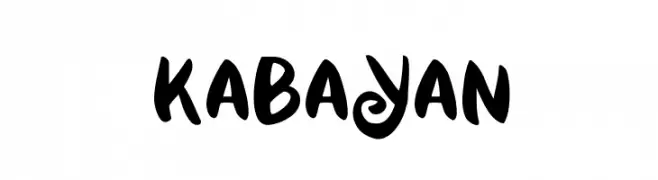
Highly decorative, geometric mandala-style symbol set.
Highly decorative geometric display set with kaleidoscopic motifs.
A collection of decorative symbols with intricate, kaleidoscopic designs.
Intricate, kaleidoscope-like symbols with geometric patterns.
A decorative collection of geometric and abstract symbols with a kaleidoscopic effect.
An ornate, decorative font with floral and geometric patterns in each character.
A bold, expressive handwritten font with fluid, dynamic strokes.
A playful, hand-drawn font with bold, irregular strokes.
A bold, distressed font with a rugged, vintage appearance.
A bold, geometric font with Art Deco influences, featuring tall, narrow characters.
A bold, flowing script font with elegant curves and decorative swashes.
A flowing, cursive script font with elegant, interconnected characters.
A bold, modern font with strong, uniform characters.
Decorative handwritten script font.
A bold, angular, and geometric font with a modern aesthetic.
A classic calligraphic font with sharp, angular strokes and a traditional Cyrillic style.
A bold, graffiti-inspired font with dynamic and expressive characters.
A flowing, cursive font with elegant, connected letters and dynamic strokes.
A playful and artistic script font with flowing, connected letterforms.
A bold, flowing script font with high contrast and elegant cursive strokes.
A graceful, flowing script font with a handwritten cursive style.
A cursive, handwritten-style font with elegant, flowing strokes.
An elegant script font with flowing, interconnected letters and sophisticated flourishes.
An elegant, flowing script font with intricate loops and graceful lines.
A playful, handwritten-style font with bold, consistent strokes and a casual vibe.
A bold, cursive font with smooth, flowing script and strong presence.
( Fonts by Ramli Setiadi - Personal-use only. For commercial use please contact owner. )
A cursive, handwritten-style font with elegant, flowing strokes.
A bold, geometric font with a three-dimensional, angular design.
A bold, 3D, cartoonish font with a playful, distorted style.